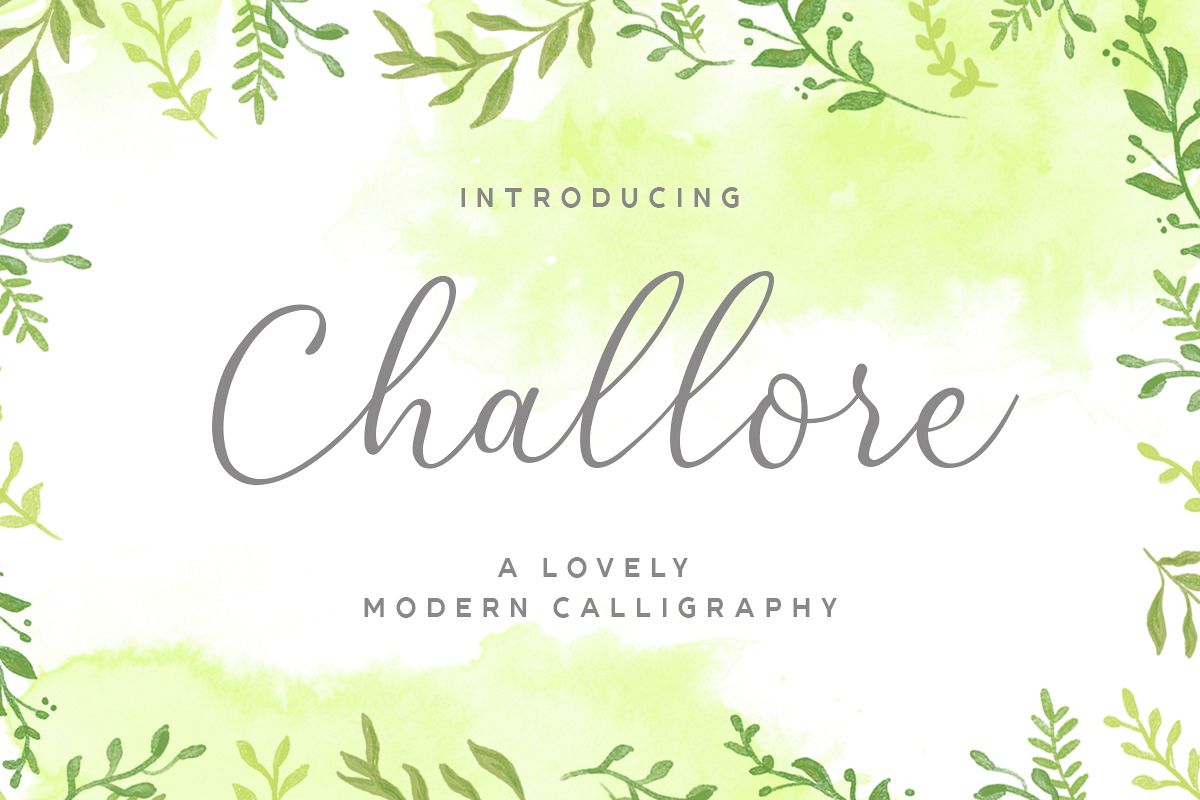
Challore Script
Thanks for checking out Challore Script a lovely modern Calligraphy that bring luxury feel. The natural hand writing script is suitable for you who needs a typeface to make your text stand out - perfect for logos, printed quotes, invitations, cards, product packaging, headers and whatever your imagination holds. This typeface is comes in uppercase, lowercase, punctuations, symbols & numerals, stylistic set alternate, ligatures, etc also support multilingual.